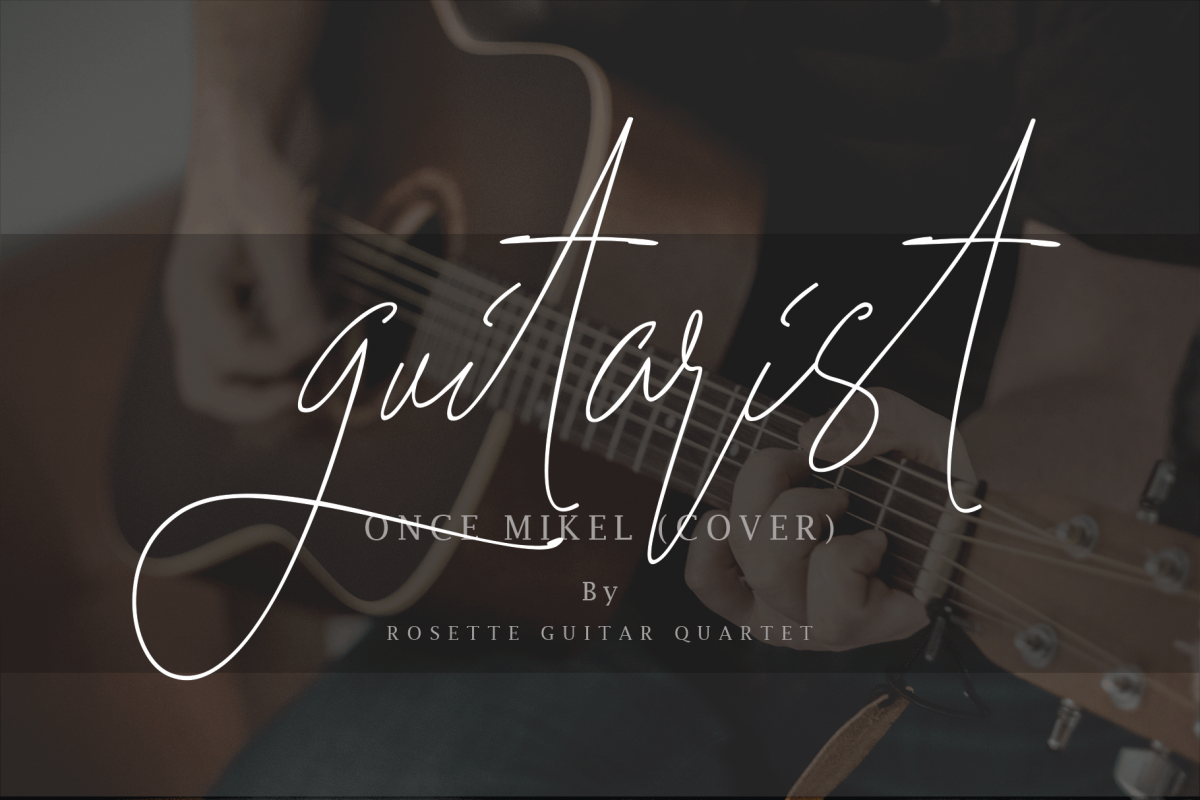
Guitarist, a work that is purely handwritten, has natural characteristics. It's perfect for invitations, signatures, blogs, social media, business cards, product brands.
Guitarist is a simple font that has Stylistic standards, Stylistic Alternatives, Ligature, Swash, and includes uppercase and lowercase letters, numbers and punctuation.